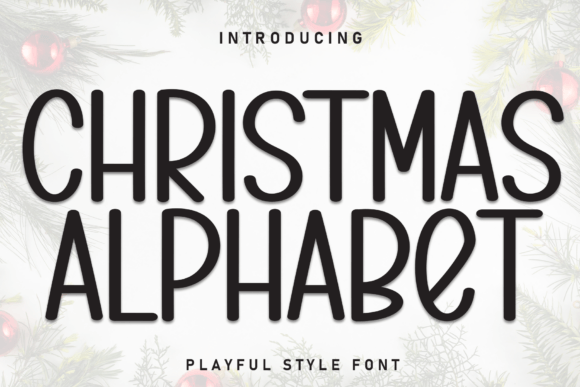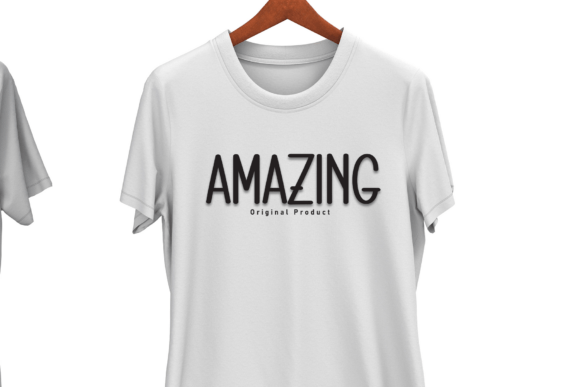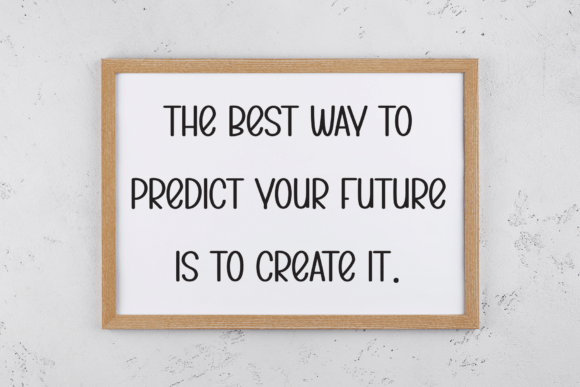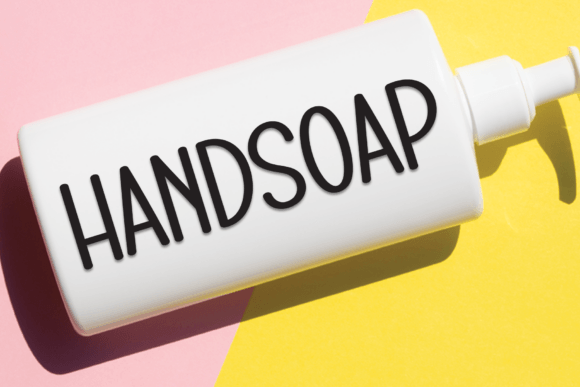
Christmas Alphabet Font Font
About the Christmas Alphabet Font Font
Meet Christmas Alphabet Font Font, a stunning font that brings a touch of elegance and professionalism to any design. Christmas Alphabet Font is a tall and thin handwritten typeface. This font will help your needs, such as logos, product packaging, invitations, branding, headlines, signage, labels, book covers, posters, quotes, and more.